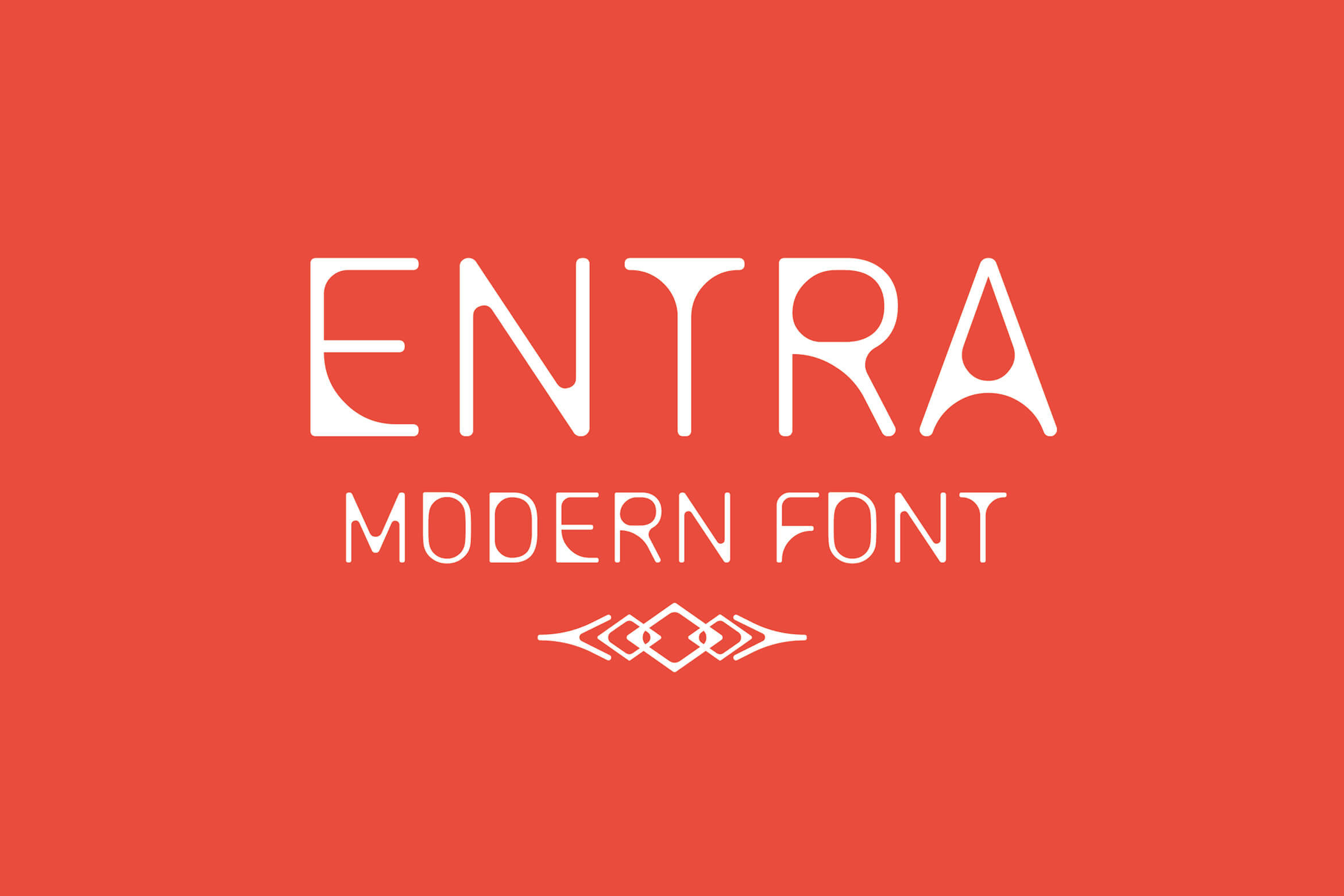
Entra Font
Entra is a great font for Logos and eye catching Headlines
Entra is a modern look caps only font, the secret of this font lies between sharp corners and rounded shapes.